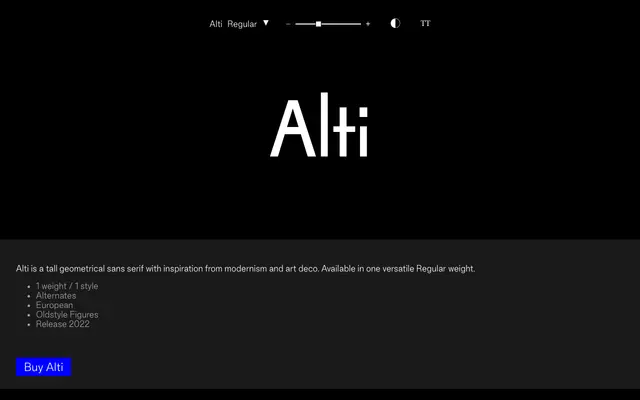
Alti
Good Type Foundry · 2022
A tall, single-weight geometric sans with art deco and modernist references, released in 2022 by Good Type Foundry.
Built on geometric principles with tall proportions, Alti draws from modernism and art deco to produce a distinctive single-weight sans. It ships in one Regular style with alternates, oldstyle figures and European character support across a broad Latin Extended glyph set. The narrow, upright character makes it best suited to display and headline settings where its architectural geometry can carry the work.
Described explicitly as a geometrical sans serif with modernist and art deco influence; tall proportions and clean geometric construction place it firmly in the geometric sans category.